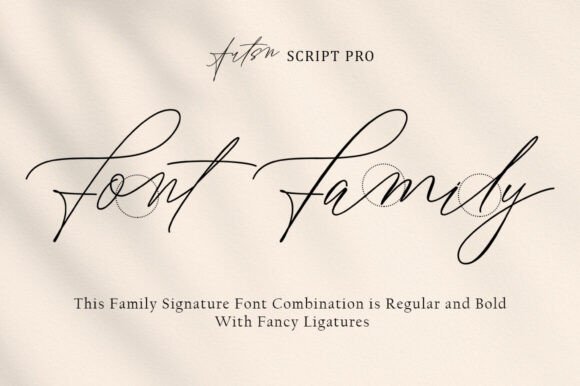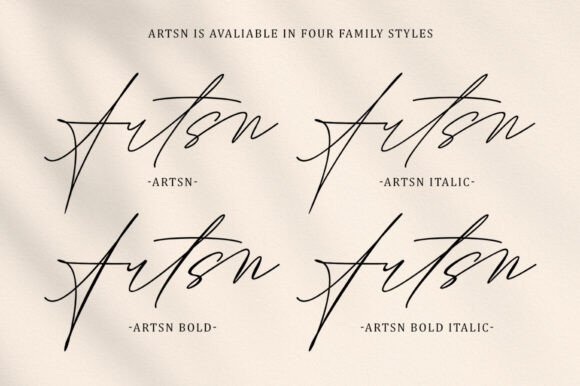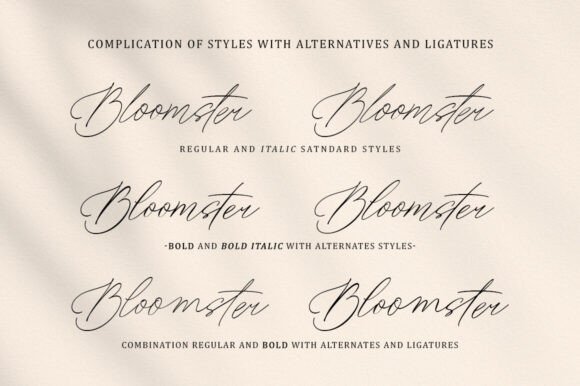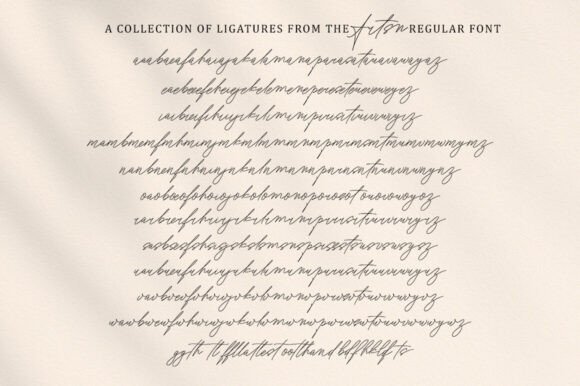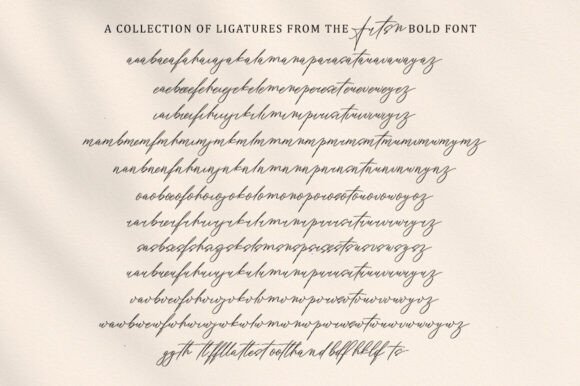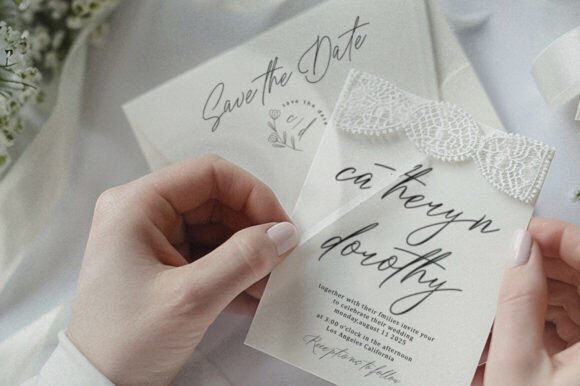
The Elegance of Artsn Font: Elevating Your Designs with Luxury and Sophistication
Have you ever been in the midst of working on a design project, only to find yourself stuck on one thing: the perfect font? I recall a particularly frustrating experience while crafting a wedding invitation for a client. The design was almost complete, but the font just wasn’t right. It was either too formal, too casual, or just plain boring. That’s when I stumbled upon Artsn Font, a game-changing signature typeface that has since become a staple in my design toolkit.
A Personal Review: What I Love About Artsn Font
Artsn Script Pro Signature Typeface with Latin Pro Artsn is, without a doubt, a stunning font that exudes elegance and luxury. Here are a few things that I absolutely love about it:
- ✨ Smooth typographic style: Artsn boasts a fluid, natural look that adds a touch of sophistication to any design.
- ✅ Extensive ligatures and letter alternatives: With 240 ligatures and various letter alternatives, Artsn offers the flexibility to create unique and exclusive designs.
- 💫 Elegant and luxurious feel: This font is perfect for designs that require a high-end look, such as wedding invitations, luxury branding, and fashion editorials.
While Artsn Font is undoubtedly a powerful tool, there are a few minor quirks to be aware of:
- 🤔 Steep learning curve for beginners: With so many features and options available, it may take some time for new users to get familiar with Artsn’s capabilities.
- ⚠️ Requires OpenType features support: To fully utilize Artsn’s advanced features, you’ll need to work in a design environment that supports OpenType features.
The Story Behind Artsn Font: Designer Inspiration
Artsn Font was crafted with the intention of creating a typeface that embodies elegance, sophistication, and a touch of luxury. The designer aimed to produce a font that not only looks stunning on paper but also brings a personal, high-end feel to digital designs. Inspired by classic calligraphy and modern typography, Artsn is the result of meticulous craftsmanship and attention to detail.
| What makes Artsn Font unique? | Artsn Font is unique due to its extensive ligatures, various letter alternatives, and smooth typographic style, making it perfect for creating elegant and luxurious designs. |
| Is Artsn Font suitable for body text? | While Artsn Font is primarily designed for headings and titles, its clarity and readability make it possible to use for short body texts. However, for longer texts, a more traditional typeface might be more suitable. |
| Does Artsn support OpenType features? | Yes, Artsn Font supports OpenType features, including ligatures and stylistic alternates, allowing for a high degree of customization and flexibility in your designs. |
Artsn Font is more than just a typeface; it’s a tool for designers and creatives to add a touch of elegance and sophistication to their work. Whether you’re crafting a wedding invitation, designing a luxury brand, or simply looking for a font that stands out, Artsn is an excellent choice. Its unique features, combined with its luxurious feel, make it a valuable addition to any design project.